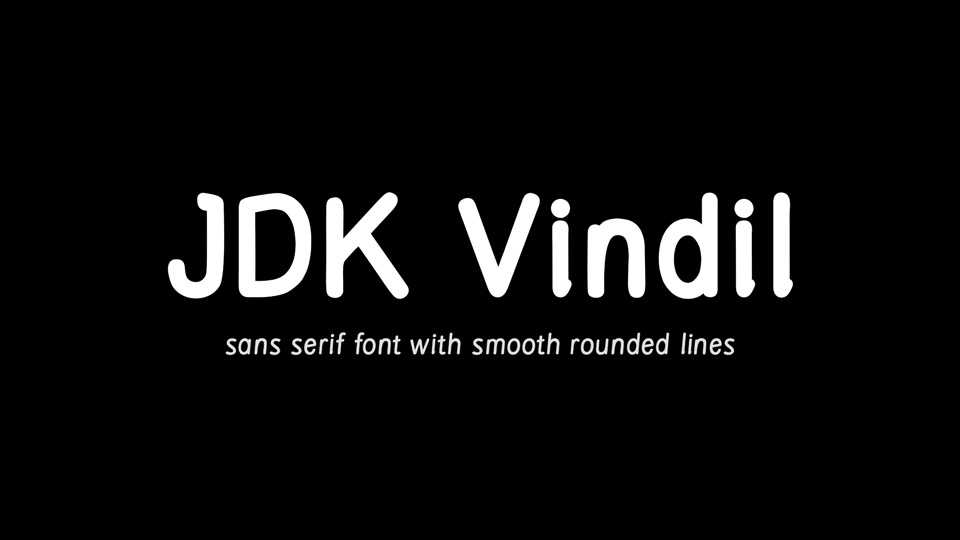
Download JDK Vindil font, a sans serif typeface with smooth rounded lines. Suitable both for typesetting and, for example, for creating a logo. Very comprehensive. In it you will find characters such as ingots and various special marks.
Designer: Jakub D. Kočí